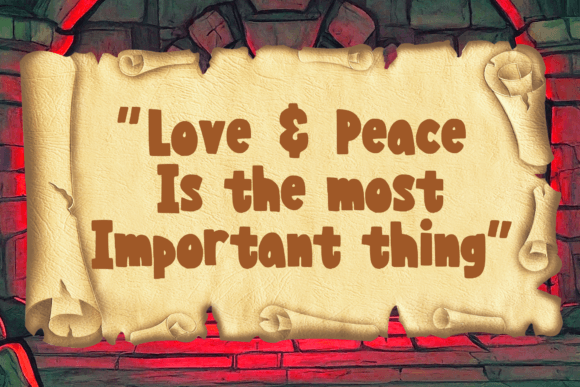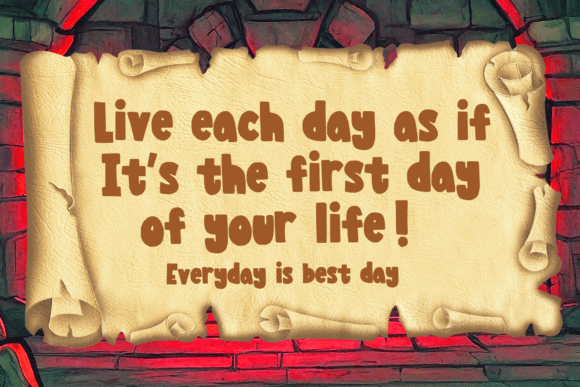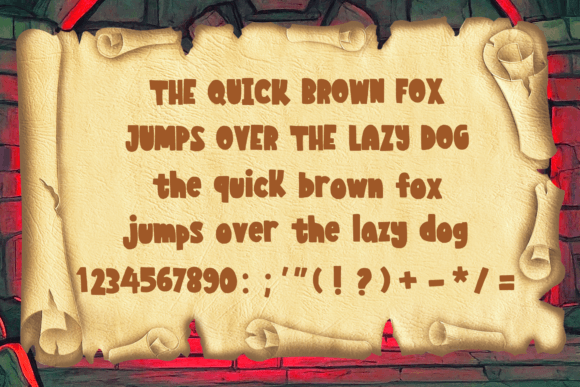
Introduction to Rumble Party Font Font
Fonts play a crucial role in design, and the Rumble Party Font font is a typeface that brings both character and versatility to any project. Whether you’re working on a branding project, a website, or a print design, the Rumble Party Font font offers a unique style that can elevate your work.
Rumble Party is a fun and playful bold game font.
You can use it for anything ranging from t-shirts, kids’ book designs, game designs, and greeting cards to stickers and posters, or anything that needs a middle-ages vibe Fall in love with its incredibly versatile style and use it to create lovely designs.
The Rumble Party Font font is more than just a typeface – it’s a design tool that helps you communicate your message with style and clarity. Its unique character set and versatile design make it suitable for a wide range of applications, from elegant invitations to bold headlines.
With its carefully crafted letterforms and balanced proportions, the Rumble Party Font font ensures readability and visual appeal across all mediums.
The Rumble Party Font font stands out with its unique design, exceptional readability, and versatility across various design applications.